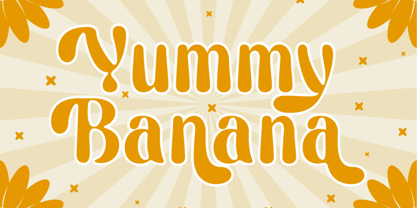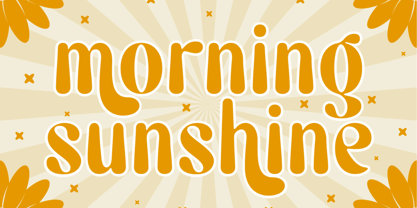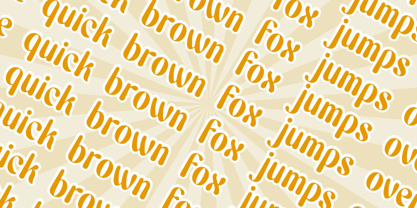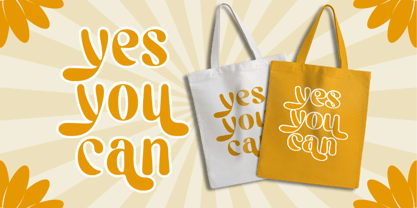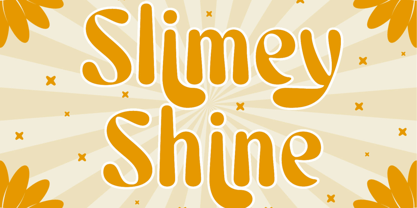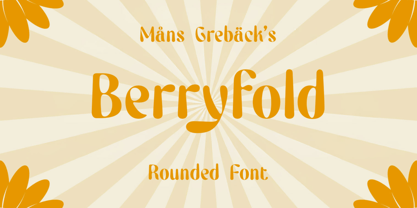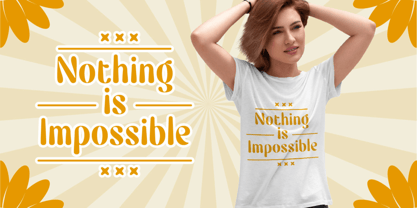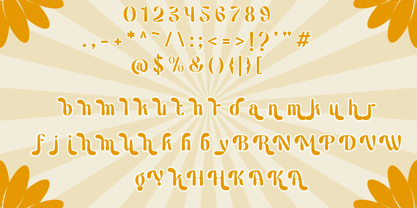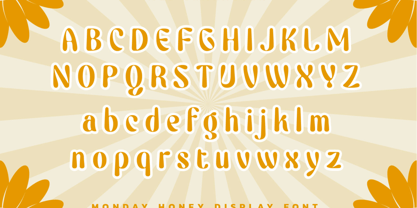
Berryfold
par Mans Greback
La famille de polices Berryfold a été conçue par Måns Grebäck et publiée par Mans Greback. Berryfold contient 4 styles et options de package familial. En savoir plus sur cette famille
Berryfold is a soft and rounded display font with a playful weight and gentle rhythm. The letters have a friendly fullness, with smooth curves and slightly quirky proportions that make the text feel warm and approachable. It carries a lighthearted tone without becoming childish, and the consistent stroke weight gives it a steady, confident presence. Berryfold reads clearly at larger sizes while still keeping its character intact, making words feel shaped rather than constructed. The font is built with advanced functionality and guaranteed top-notch quality, containing stylistic and contextual alternates, ligatures and more automatic and manual features; all to give you full control and customizability. It has extensive lingual support, covering all Latin-based languages, from North Europa to South Africa, from America to South-East Asia. It contains all characters and symbols you'll ever need, including all punctuation and numbers. Berryfold was drawn with an emphasis on balance between charm and clarity. Each letter was shaped to feel natural and slightly organic, as if written with care rather than precision tools. The goal was to create a font that feels inviting and expressive, while still being dependable and easy to work with.
Concepteurs: Måns Grebäck
Fonderie: Mans Greback